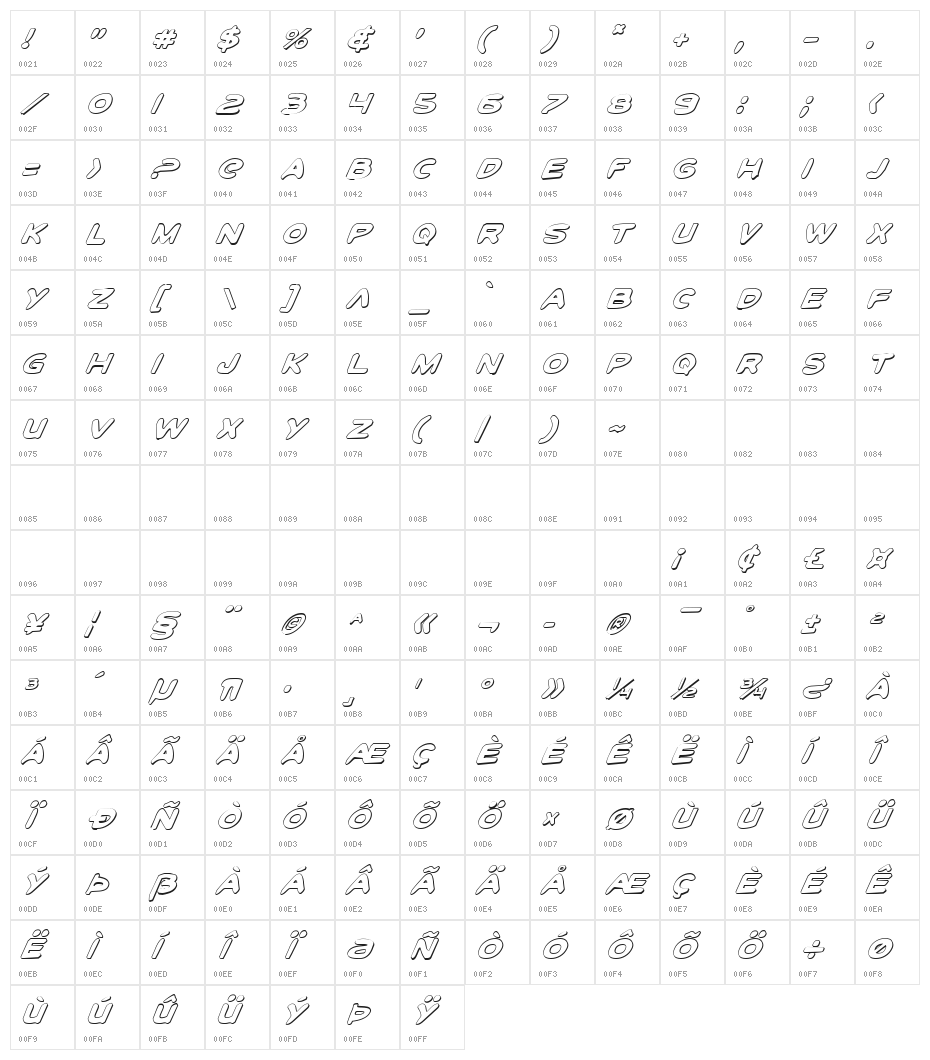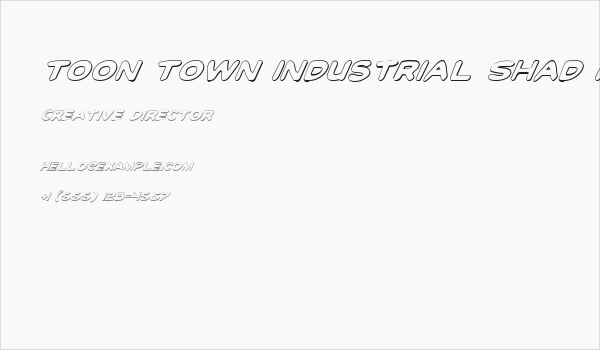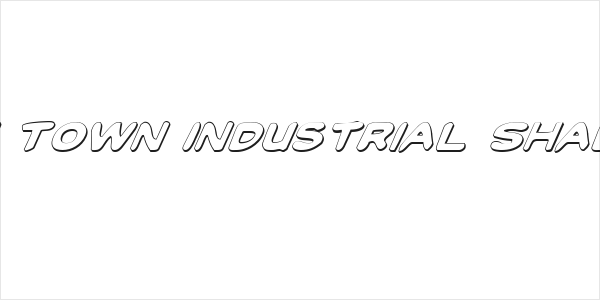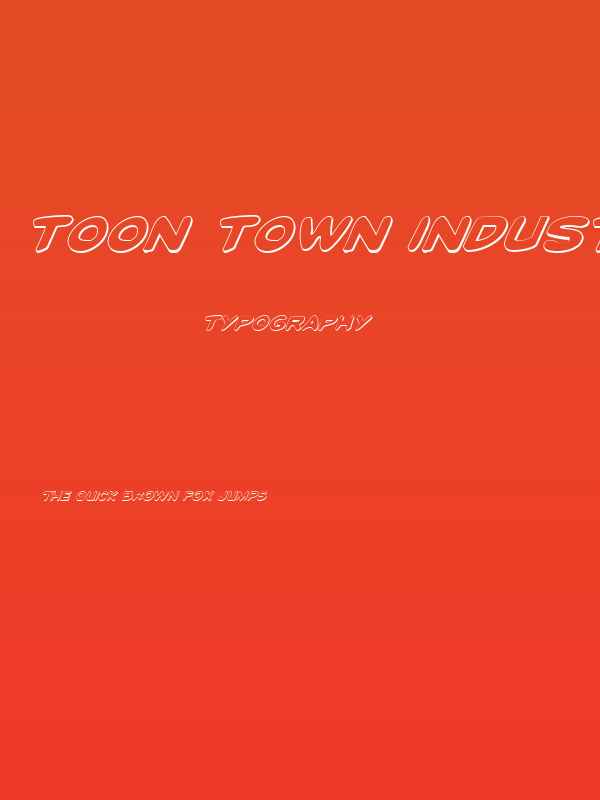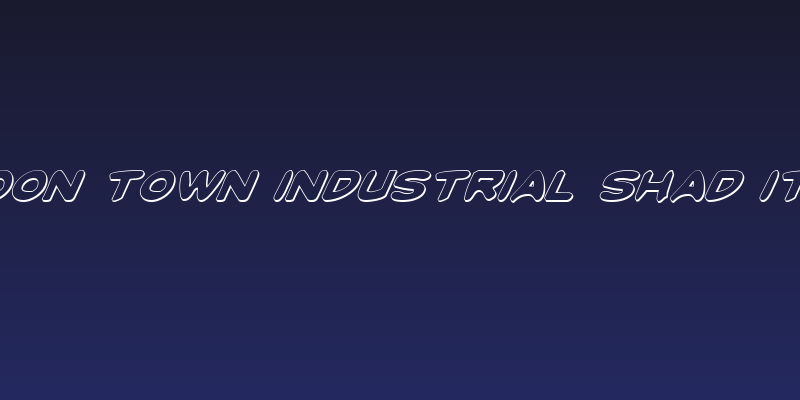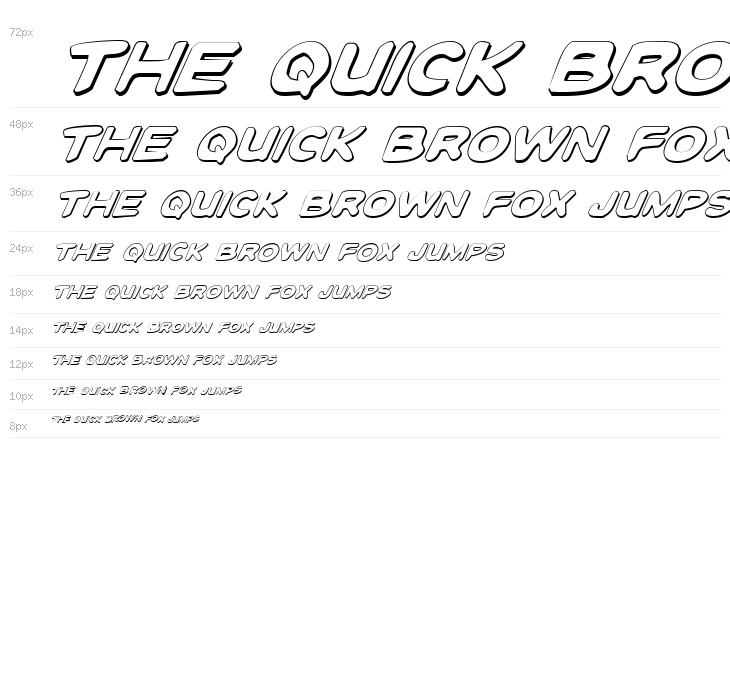
Toon Town Industrial Shad Ital Font
Toon Town Industrial Shad Ital Description
This playful and bold font features a unique shadow effect that gives it a three-dimensional appearance. The letters are rounded and slightly italicized, adding a sense of movement and fun. The font is outlined, which enhances its visibility and makes it stand out against various backgrounds. Its cartoonish style is perfect for projects that require a touch of whimsy and creativity. The characters are evenly spaced, ensuring readability while maintaining a dynamic look. This font includes a full set of uppercase and lowercase letters, numbers, and a variety of special characters, making it versatile for different design needs.
| Overall Style | Cartoonish, Playful |
| Proposed Projects | Ideal for children's books, comic strips, playful branding, and creative posters. |